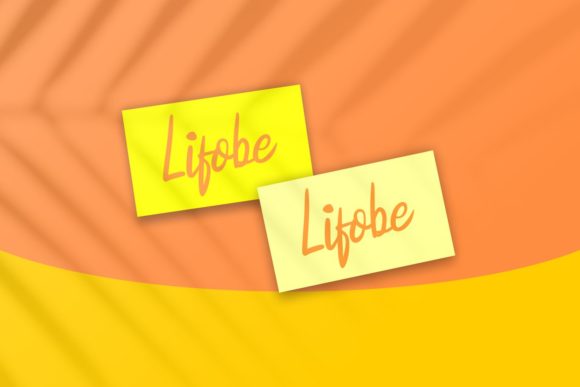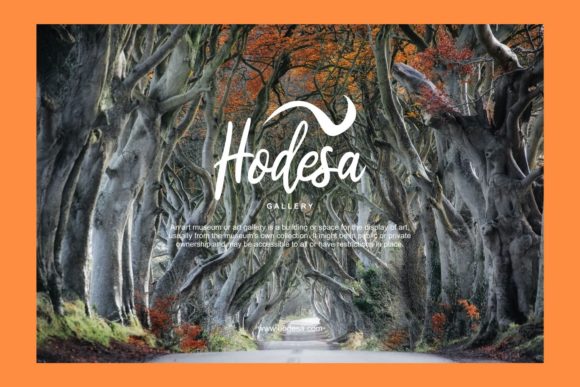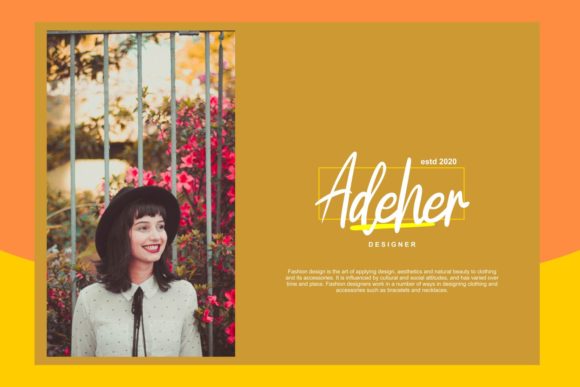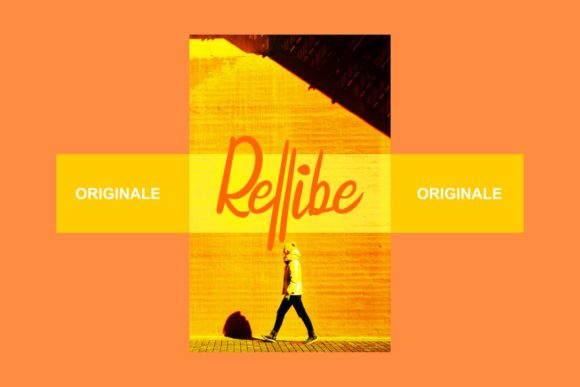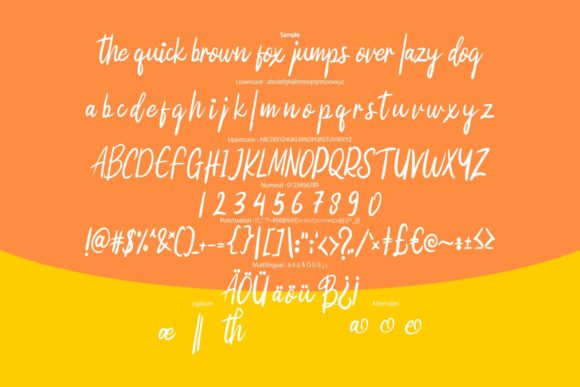
Introduction to Motibe Cebiks Font
Motibe Cebiks is a sweet and flowing handwritten font.
It looks lovely on wedding invitations, thank you cards, quotes, greeting cards, logos, business cards and every other design which needs a handwritten touch .
Key Features of Motibe Cebiks Font
Why Choose Motibe Cebiks Font?
Motibe Cebiks Font offers exceptional quality and versatility, making it a valuable addition to your design toolkit. Whether you’re creating for personal projects or commercial use, Motibe Cebiks Font delivers professional results.